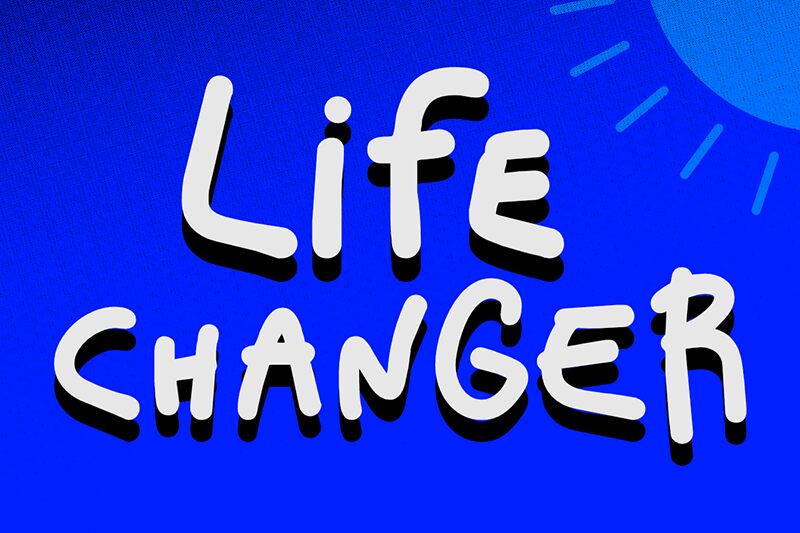
Life Changer font is a free handwritten font designed by olivetype. This font has a handwritten look, with fun letterforms whose appearance will add an informal, friendly vibe to your designs. Used at regular, small, or even display sizes, it would make a great addition to creative, casual, and informal designs. Firstly, if your design is geared toward kids, rest assured this font style will have a great impact, whether it is a product for children or a campaign targeted toward them.
Possible uses of this fun and lively font include product and packaging design, children’s books, book covers, notes/journals/planners, greeting and invitation cards (birthday cards), personal stationery design, and stickers for gifts. It’s great for branding projects as well, but make sure it aligns with your brand’s vision.